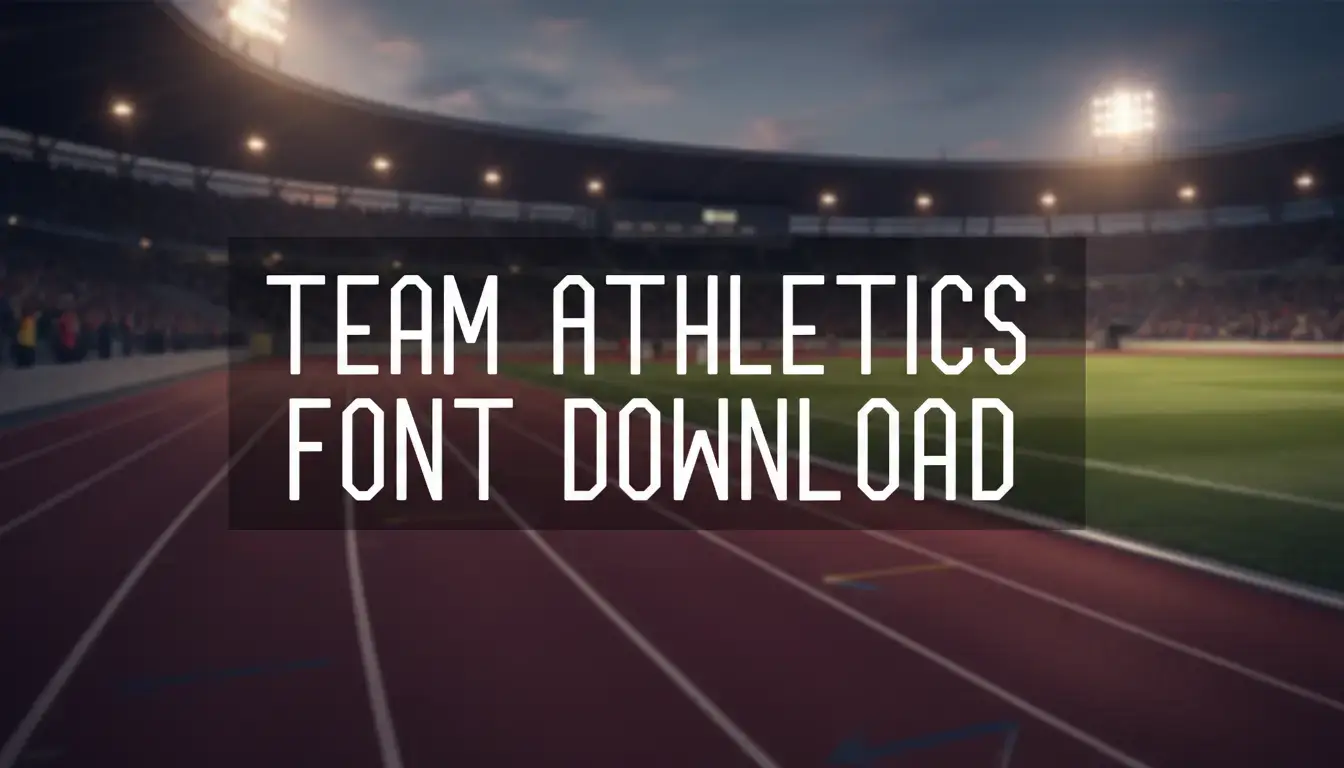
Team Athletics Font
Team Athletics Font Preview
Team Athletics
Team Athletics is a fancy font designed by Out of Step Font Company. Bold and full of character, it's built to stand out rather than blend in. You can download it for free and test it with your own words in the preview above.
What You Can Type With Team Athletics
You get every letter from A to Z in both cases and all the numbers from 0 to 9, which means Team Athletics can handle full sentences, dates and prices. Common punctuation such as &, !, ? and @ is included as well. It also has the accented letters you need for Spanish, French, German, Portuguese and Italian.
Where Team Athletics Works Best
Designers usually reach for fonts like Team Athletics when they're making posters, logos and eye-catching headlines. Use it for one standout word or headline and let simpler fonts handle the rest.
Does Team Athletics support accented letters?
Yes. Team Athletics includes the accented letters needed for Spanish, French, German, Portuguese and Italian, so it works for more than just English.